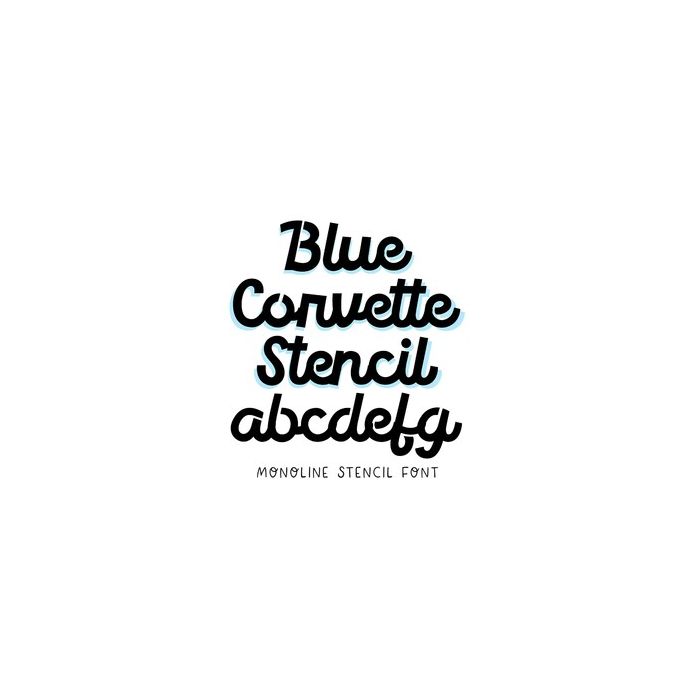
BFC Blue Corvette Stencil Monoline Retro Script Font
Blue Corvette Stencil is a chunky monoline stencil font. Find the regular version named "Chilly North".